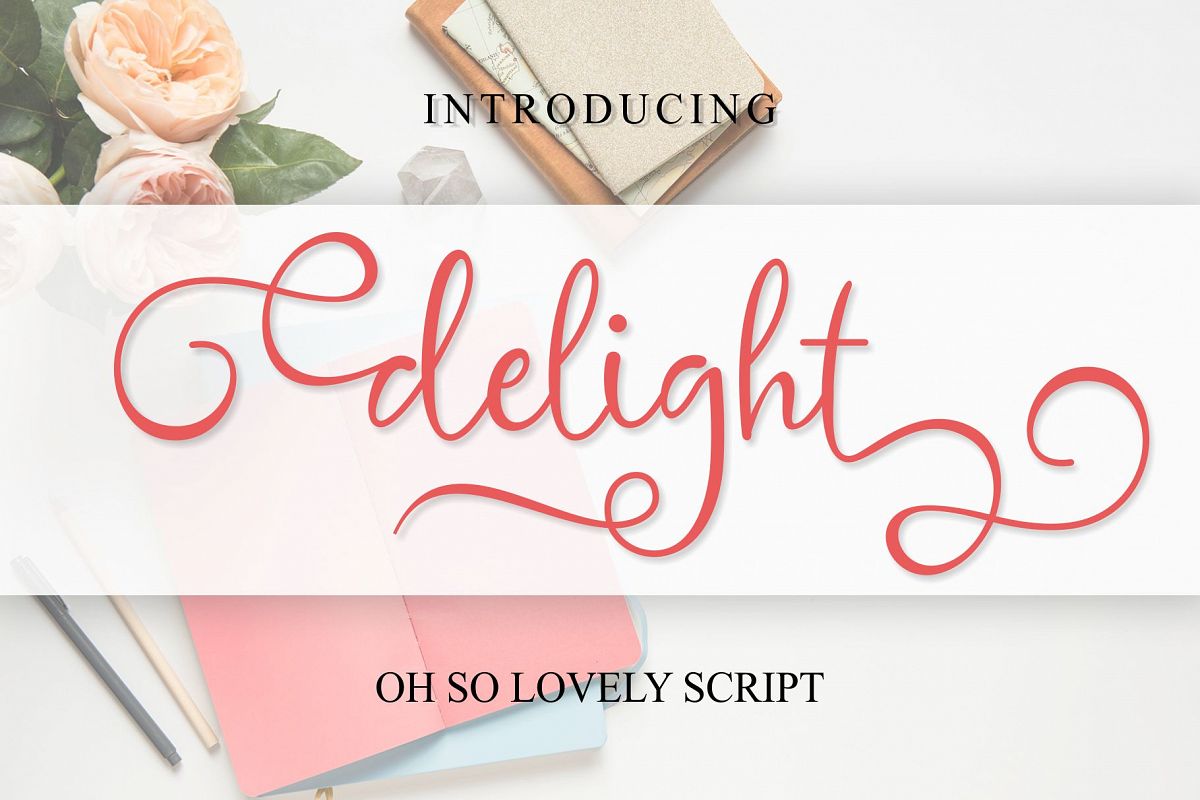
delight cute script
delight
The is an elegant font. It has an original handwritten look and can be used to give a natural impression to your designs.
It can be used for logos, brochures, business cards, photography, and much more!
delight cute script